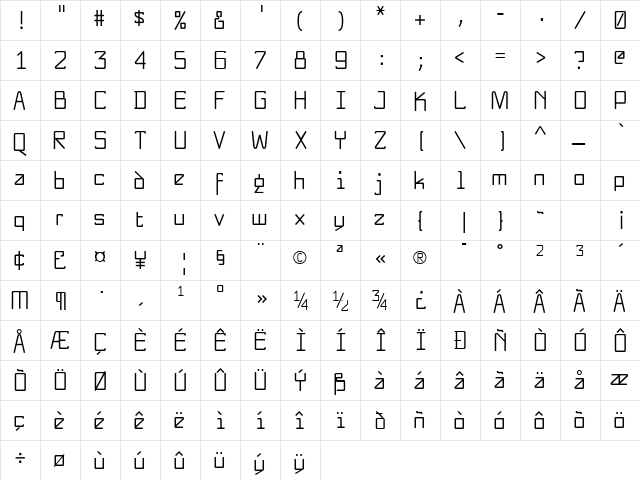
NewNerdish Plain
Design Context for NewNerdish Typeface
NewNerdish offers clean, dependable letterforms without strong stylistic allegiance, making it a practical choice for designers who need flexibility.
Pro Tip: Pair NewNerdish with a font of contrasting weight or personality to build a more expressive typographic hierarchy.